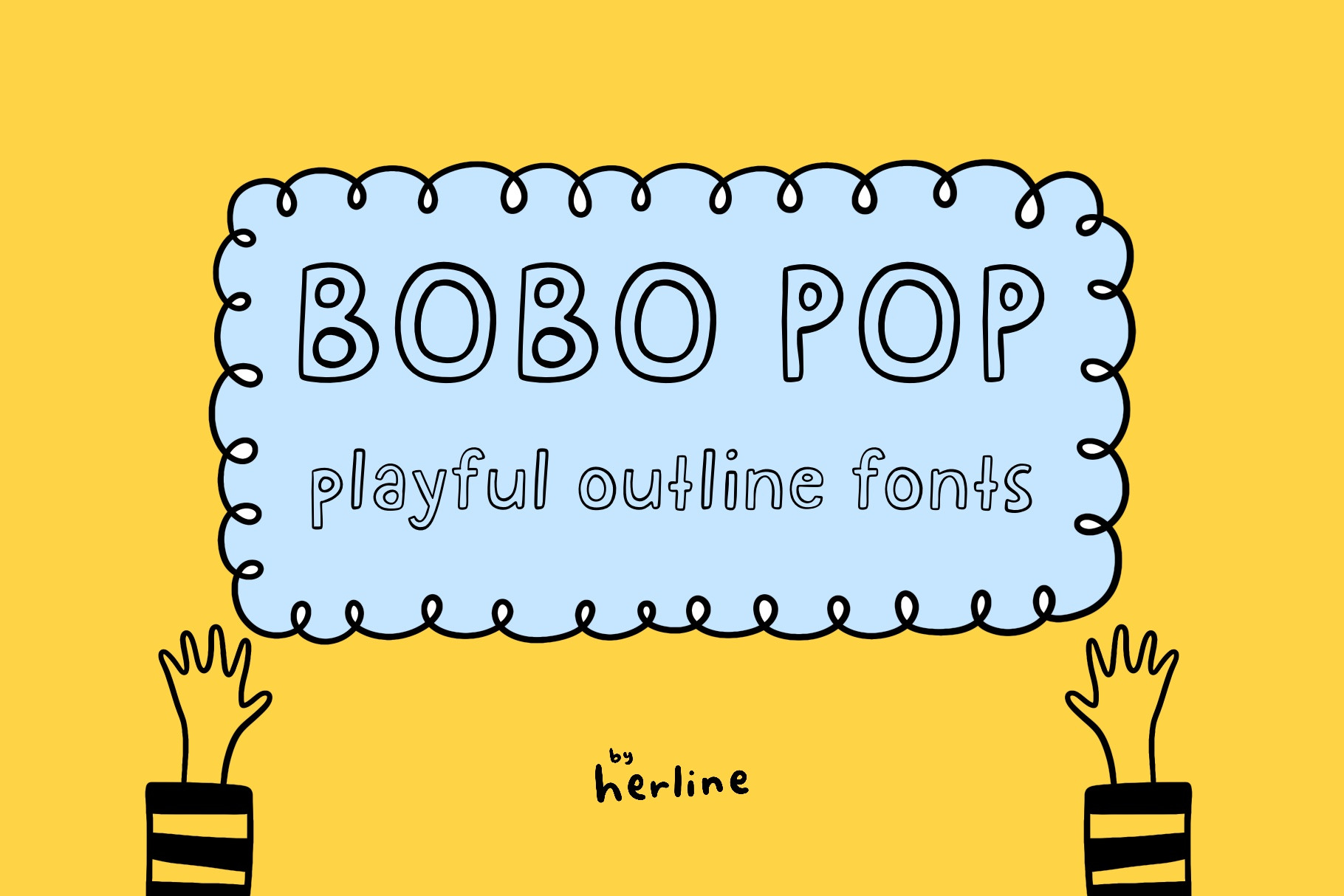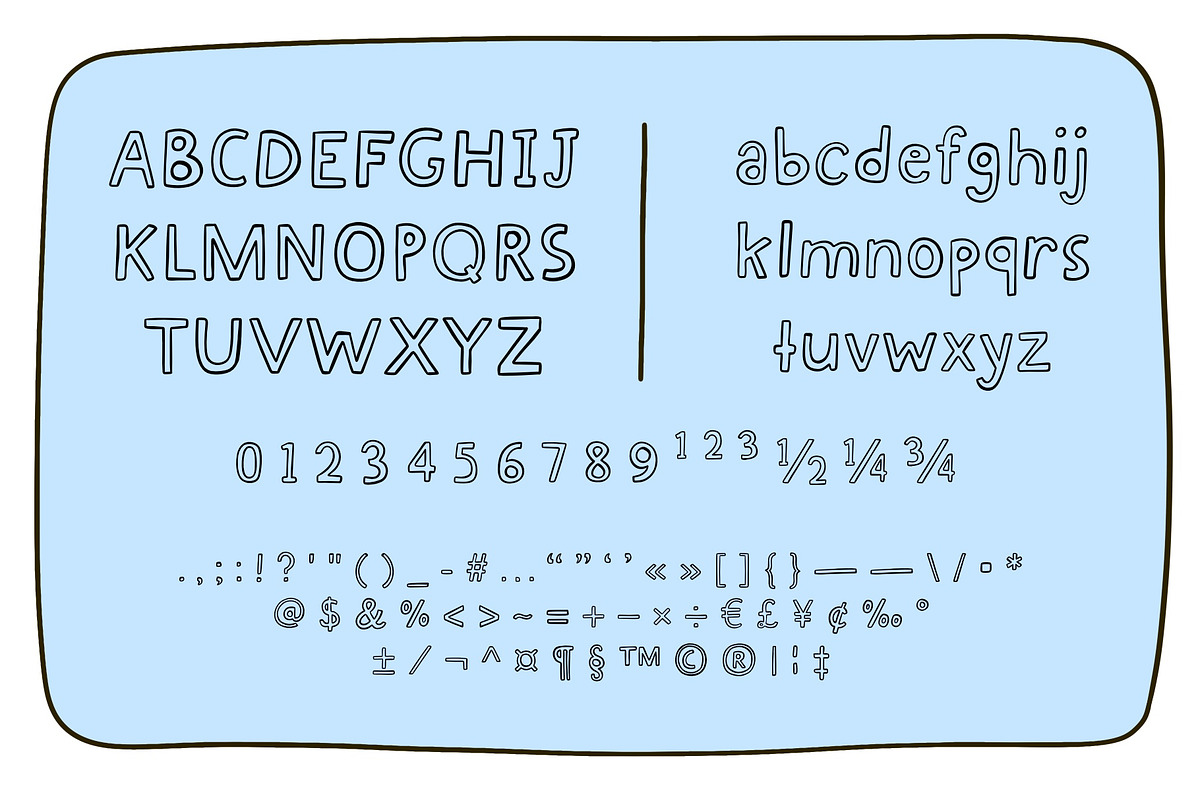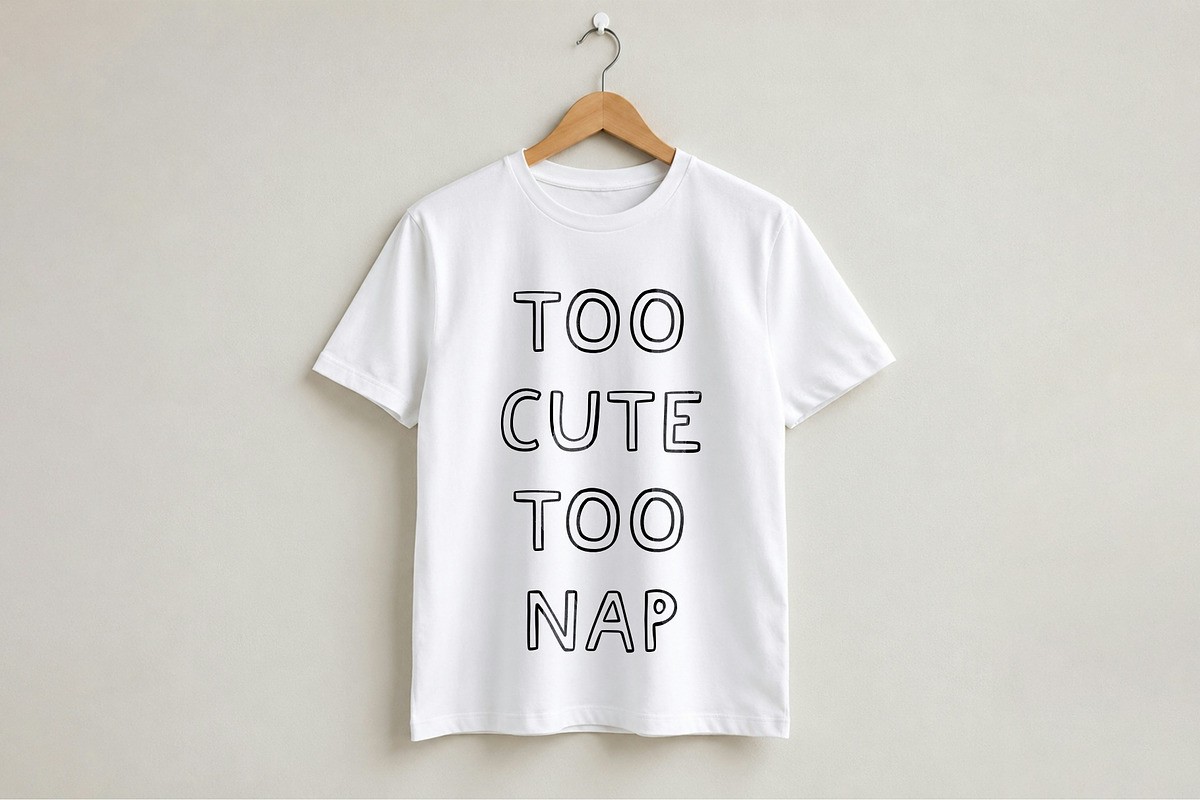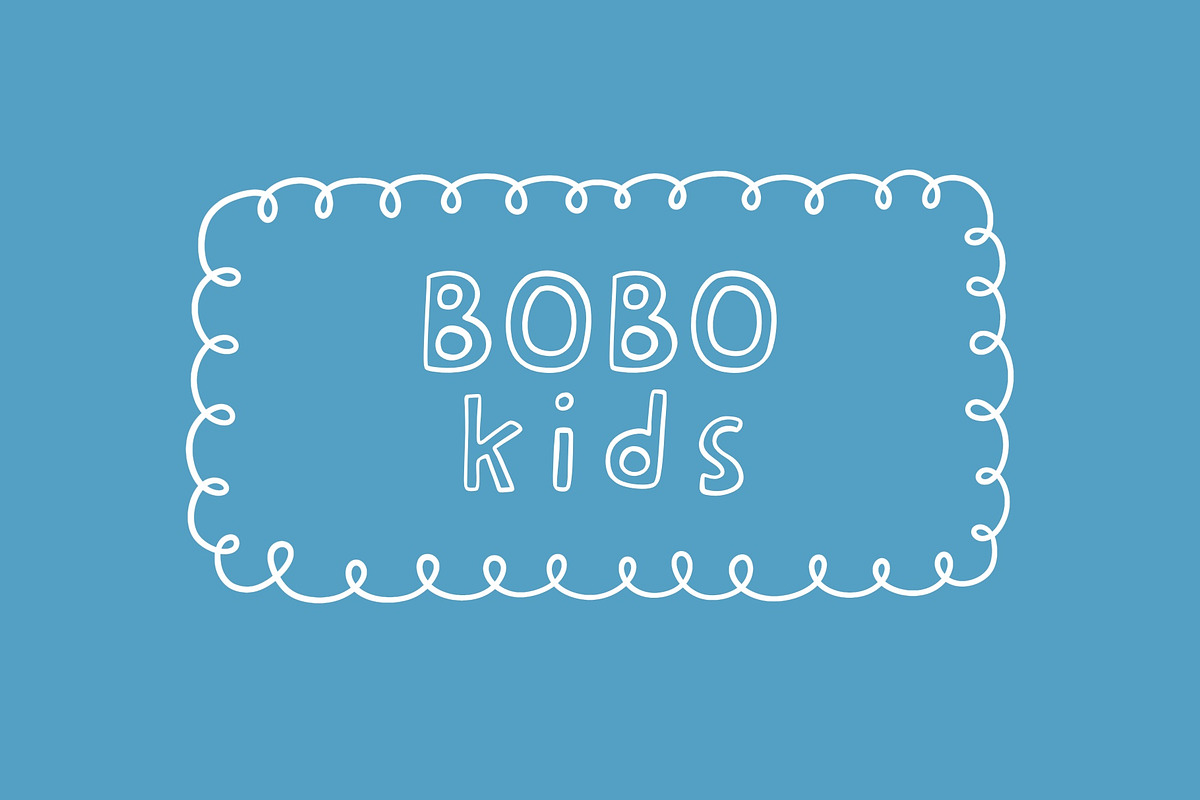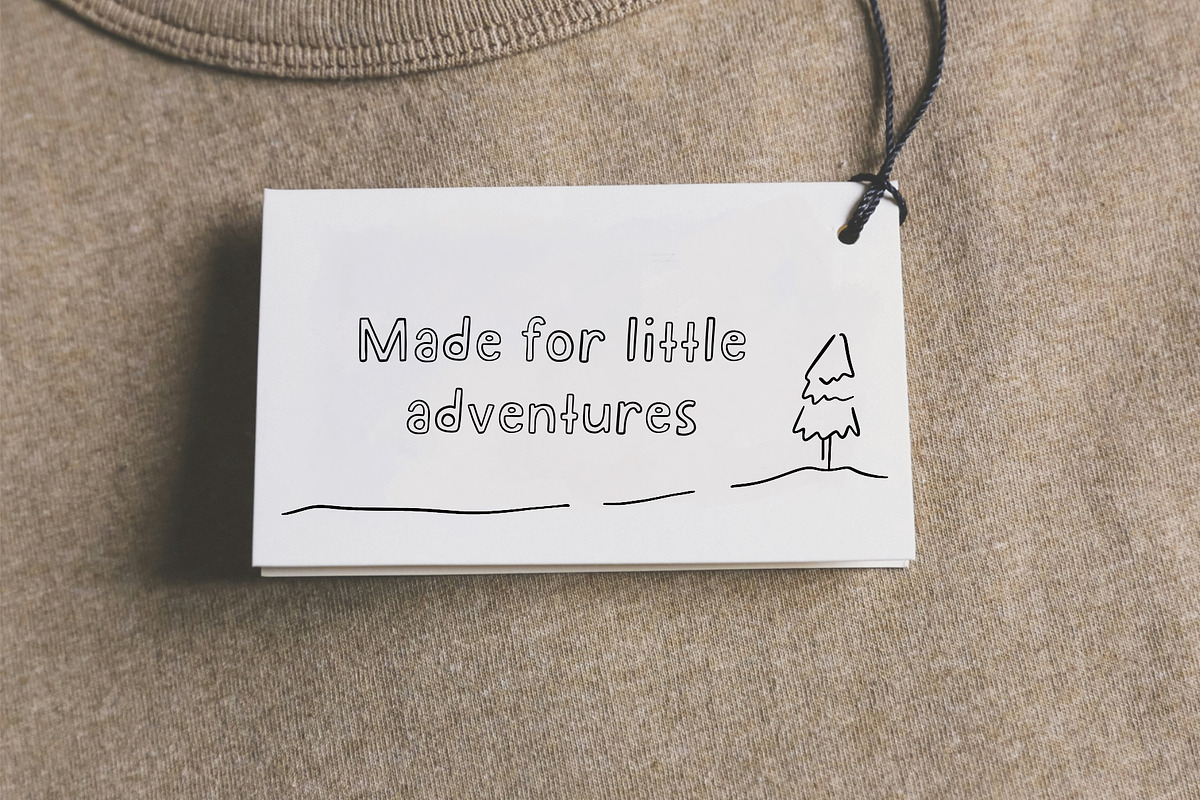
Bobo Pop - Handwritten Font
Say hello to Bobo Pop — a cute and cheerful hanacdwritten font designed to make your creations feel more fun, sweet, and full of personality. With its rounded shapes and playful style, this font is perfect for adding a soft pop of charm to any project.